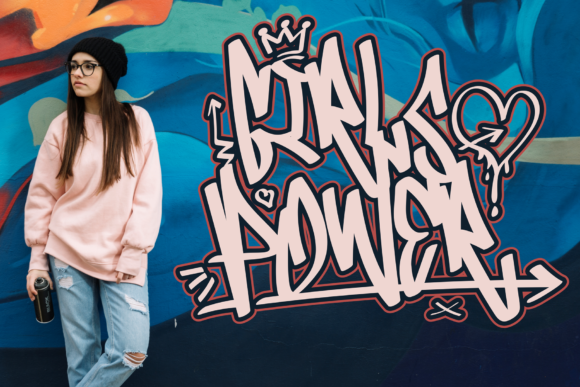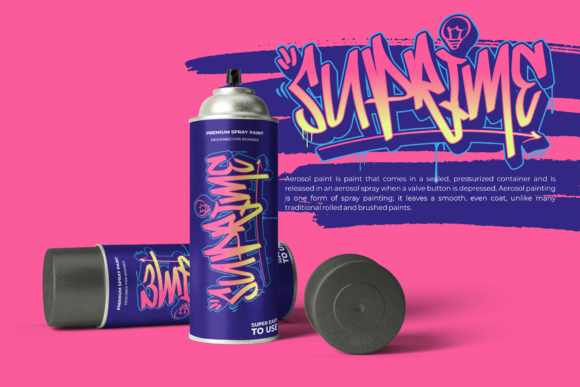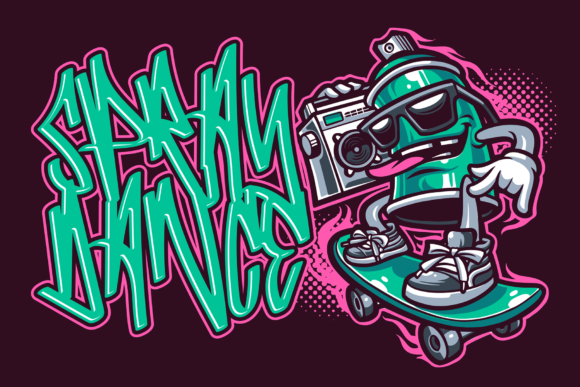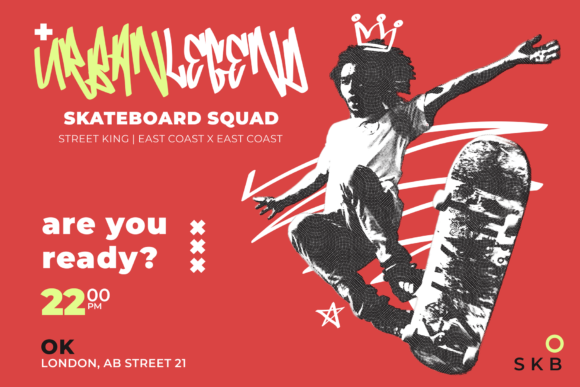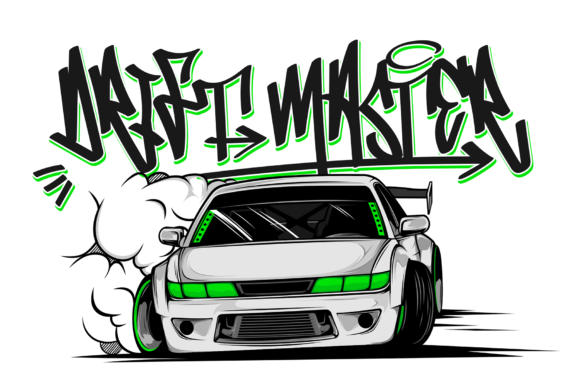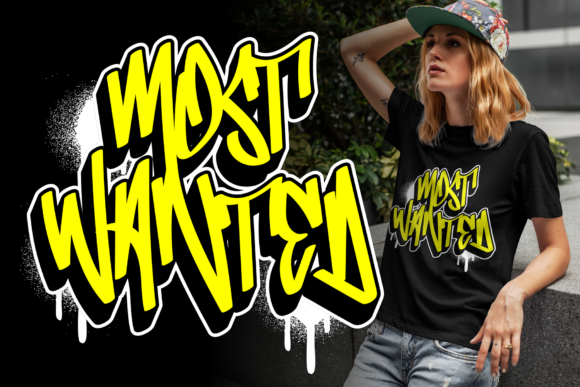
Bombardies Font: The Ultimate Display Font for Creative Minds
In the world of typography, fonts play a crucial role in conveying messages, expressing emotions, and creating visual identities. For designers, crafters, and creative enthusiasts, finding the right font can make all the difference in bringing their ideas to life. This is where Bombardies Font comes in – a bold and incredibly unique display font that is sure to take your creative projects to the next level.
What is Bombardies Font?
Bombardies Font is a distinctive display font designed to make a statement. Its bold and eye-catching design makes it perfect for headlines, titles, and any other text that needs to grab attention. With its unique style, Bombardies Font adds a touch of personality and flair to any design, setting it apart from more traditional fonts.
Key Features of Bombardies Font
- Bold and Unique Design: Bombardies Font boasts a bold and unique design that is sure to turn heads. Its distinctive style makes it perfect for creating eye-catching headlines and titles.
- Highly Versatile: Despite its bold design, Bombardies Font is highly versatile and can be used in a variety of creative projects, from posters and flyers to digital graphics and branding materials.
- Easy to Read: Despite its bold style, Bombardies Font is surprisingly easy to read, making it perfect for use in a variety of contexts, from large-scale displays to smaller digital graphics.
Why Use Bombardies Font?
So why should you use Bombardies Font in your creative projects? Here are just a few compelling reasons:
- Adds Personality to Your Designs: Bombardies Font adds a touch of personality and flair to any design, helping to set it apart from more traditional fonts.
- Perfect for Headlines and Titles: With its bold and eye-catching design, Bombardies Font is perfect for creating attention-grabbing headlines and titles.
- Enhances Creativity: Bombardies Font is designed to inspire creativity and help you think outside the box. With its unique style, it’s the perfect font for designers and crafters looking to push the boundaries of their creativity.
How to Use Bombardies Font
Using Bombardies Font in your creative projects is easy. Here are a few tips to get you started:
- Pair with Other Fonts: Bombardies Font pairs well with other fonts, making it easy to create visually interesting and dynamic designs.
- Experiment with Colors: Don’t be afraid to experiment with different colors and textures to really make your design pop.
- Use for Headlines and Titles: Bombardies Font is perfect for use in headlines and titles, but don’t be afraid to use it for other text elements, such as body copy or captions.
In conclusion, Bombardies Font is a bold and incredibly unique display font that is sure to add a touch of personality and flair to any design. With its highly versatile design, ease of use, and compatibility with multiple platforms, Bombardies Font is the perfect choice for designers, crafters, and creative enthusiasts looking to take their creative projects to the next level. So why wait? Add Bombardies Font to your creative toolkit today and discover the difference it can make!